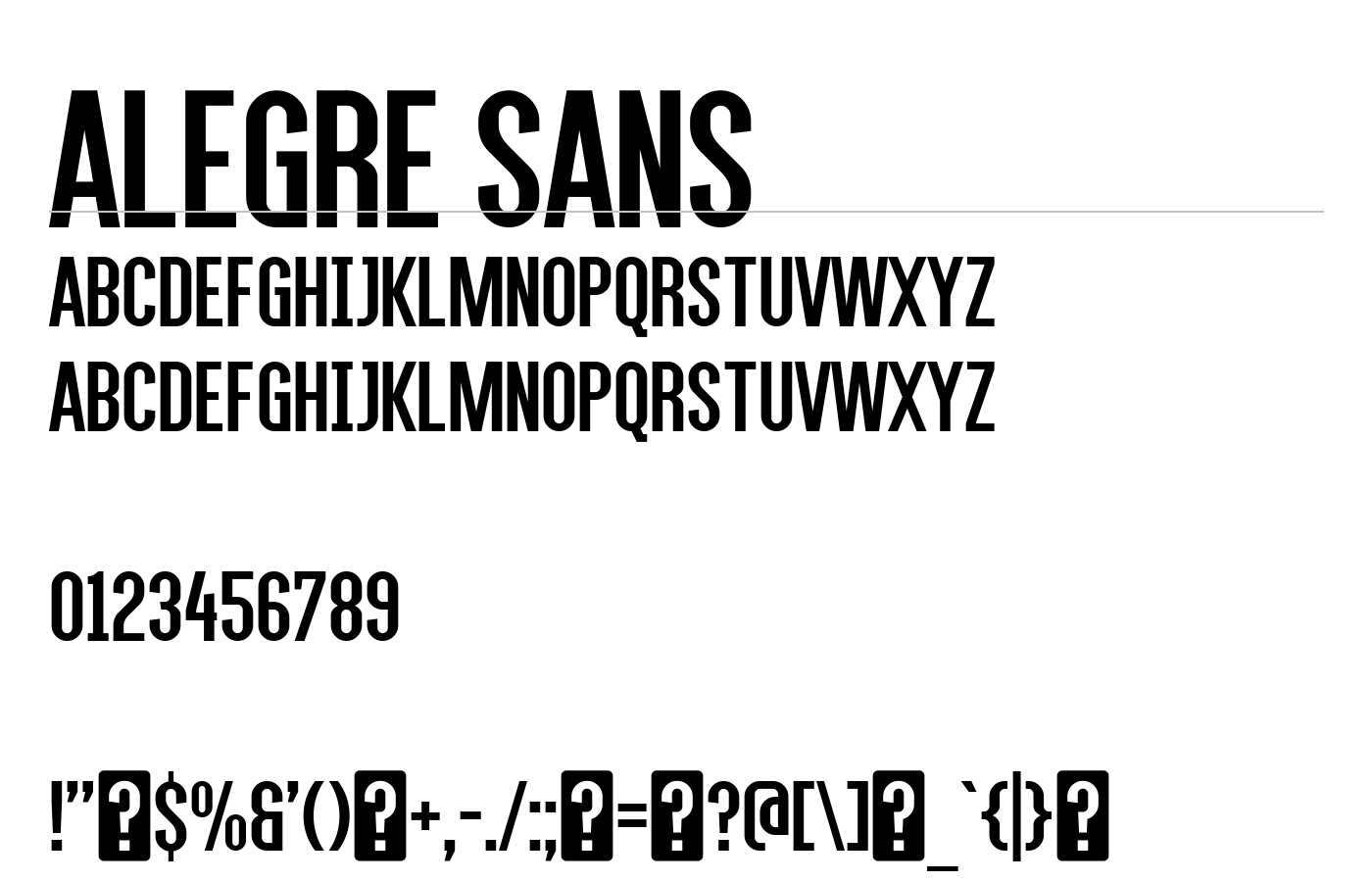
Alegre Sans is a bold, condensed sans serif font with a tall x-height and uniform stroke weight that gives it a clean, modern appearance. Its straightforward, no-frills letterforms make it highly effective for impactful headlines and branding where clarity and strong presence are key. This font works well in editorial layouts, posters, and digital interfaces aiming for a confident, contemporary vibe.
Alegre Sans Font
About Alegre Sans Font
| Font family | Alegre Sans Font |
| Designer | GrandChaos9000 |
| Font subfamily | Condensed |